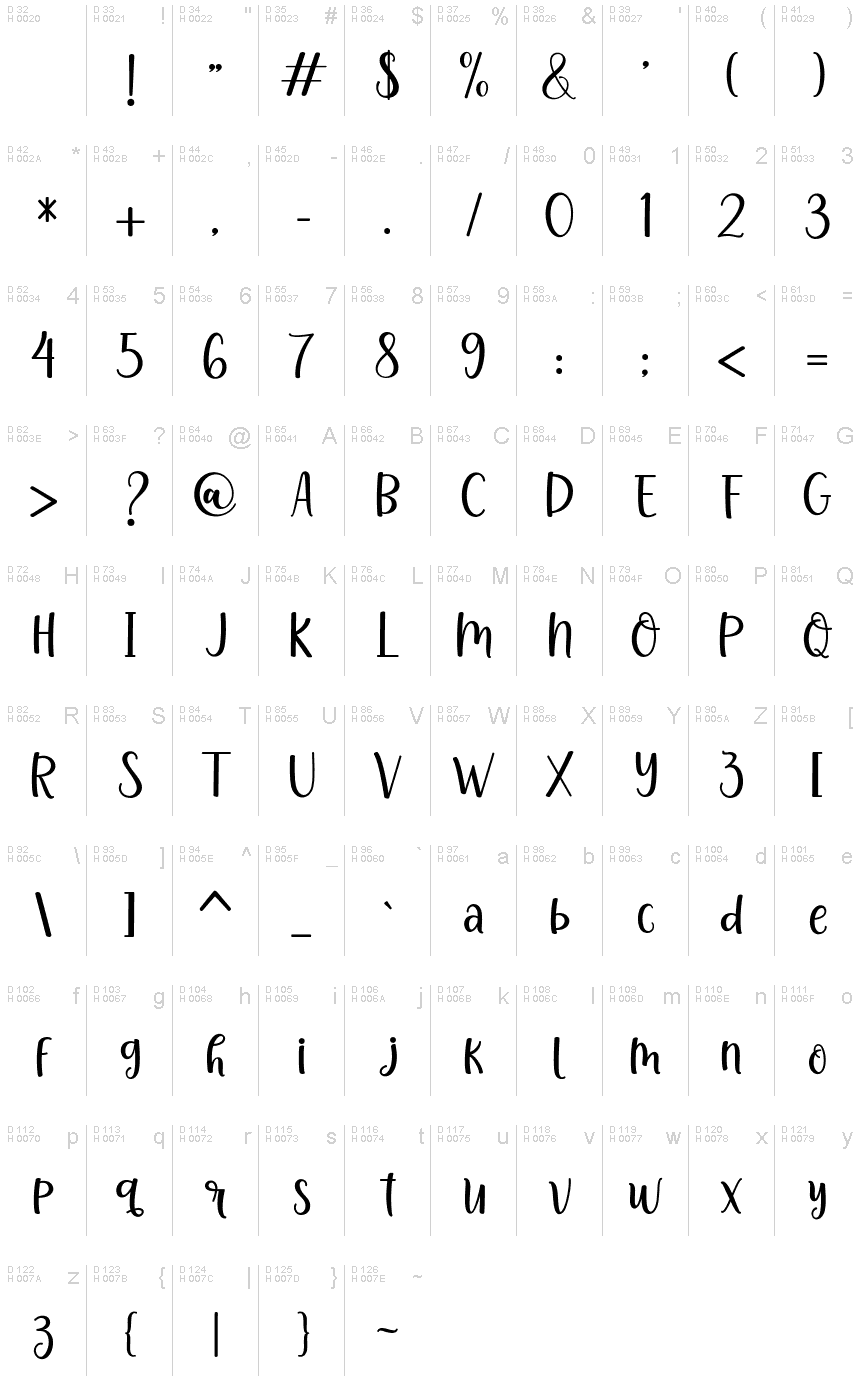
Christmasholiday
Celebrate the festive season in style with Christmas Holiday - a stunning calligraphy font by Amarlettering's Takiy. With its elegant strokes and beautiful curves, this font is perfect for adding a touch of sophistication to your holiday projects. Whether you're designing greeting cards, invitations, or creating social media posts, Christmas Holiday is sure to make a lasting impression. The semi-bold font allows for easy readability while the narrow width makes it ideal for fitting more text into tight spaces. Make your holiday designs stand out with Christmas Holiday - the perfect blend of elegance and festivity!